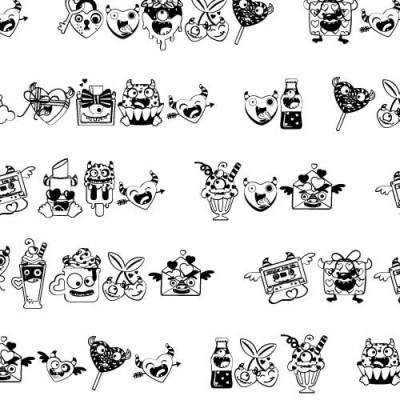
DB Heart and Fang - Too - DB
This whimsical doodlebat font features adorable love monster objects. Perfect for Valentines, cards, crafts, gifts, planner stickers, classrooms, scrap book pages and more!